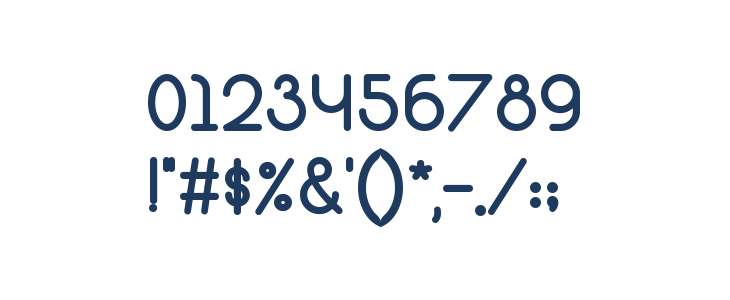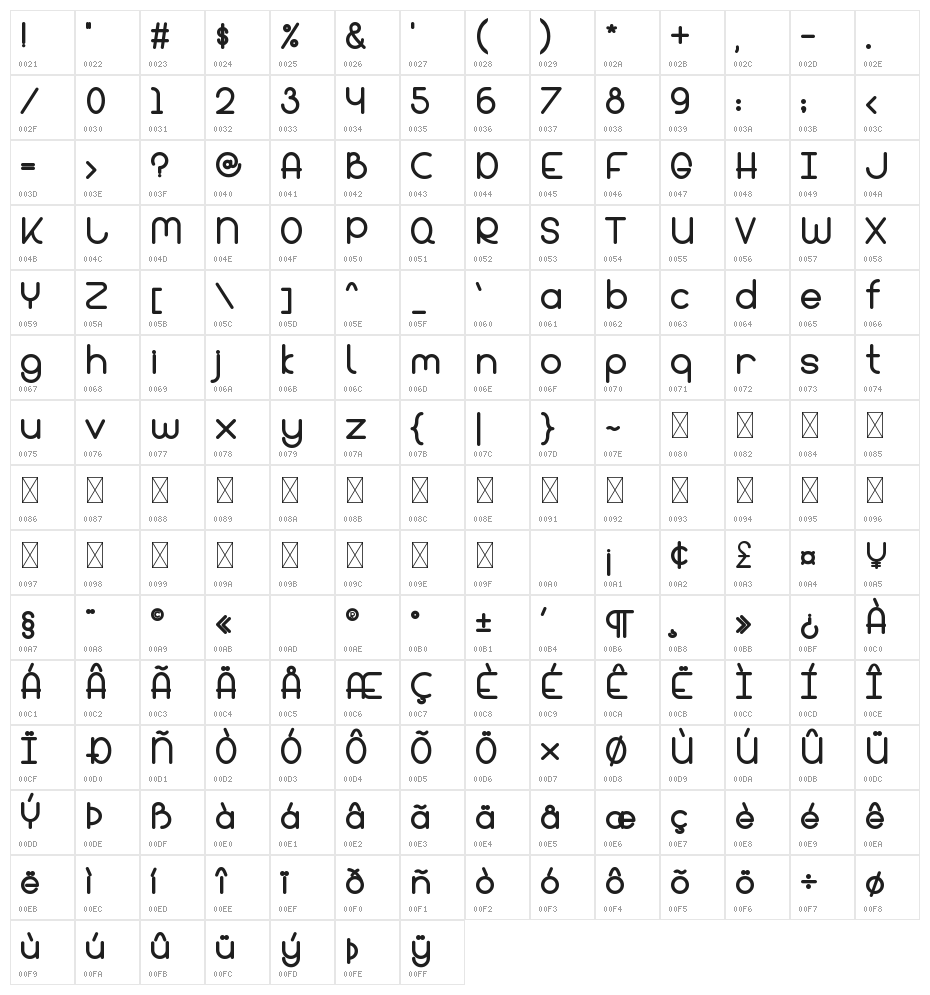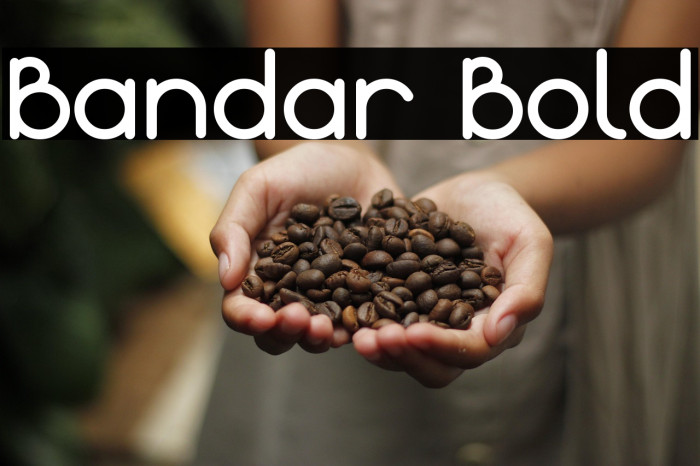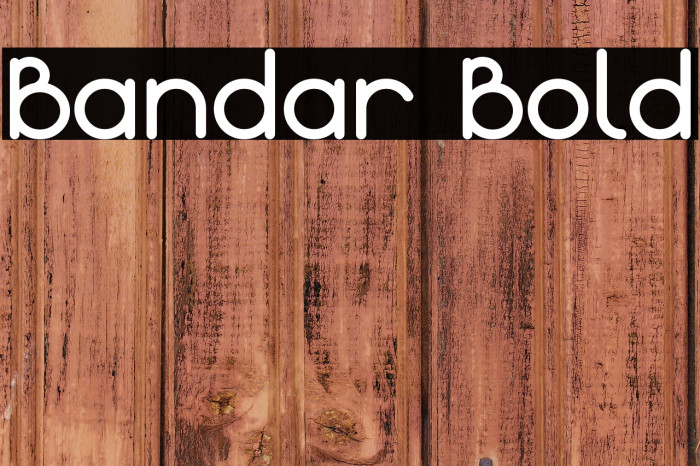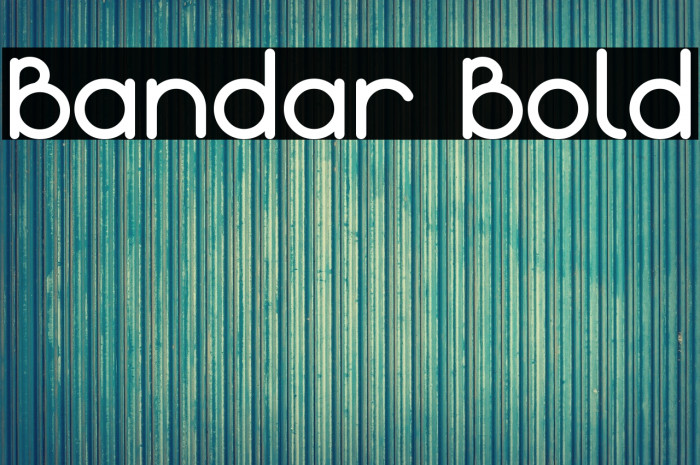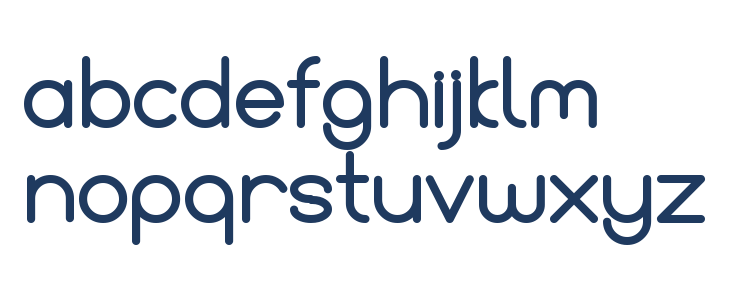
Bandar Bold Font
Bandar Bold Description
This font features a playful and rounded design, characterized by its smooth curves and consistent stroke width. The letters are bold and have a friendly, approachable appearance, making it suitable for a variety of creative projects. The uppercase and lowercase letters maintain a uniform style, with rounded edges that enhance its modern and casual look. The numerals and special characters are designed to match the overall aesthetic, providing a cohesive and harmonious feel. This font is versatile and can be used in both digital and print media, offering a unique blend of style and readability.
Use CaseHeadlines, Logos, Casual Text
Proposed ProjectsIdeal for children's books, playful branding, casual invitations, and digital media.